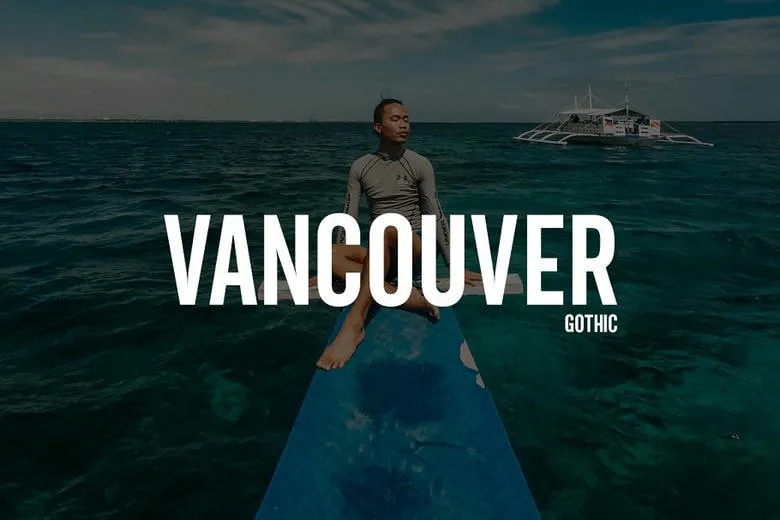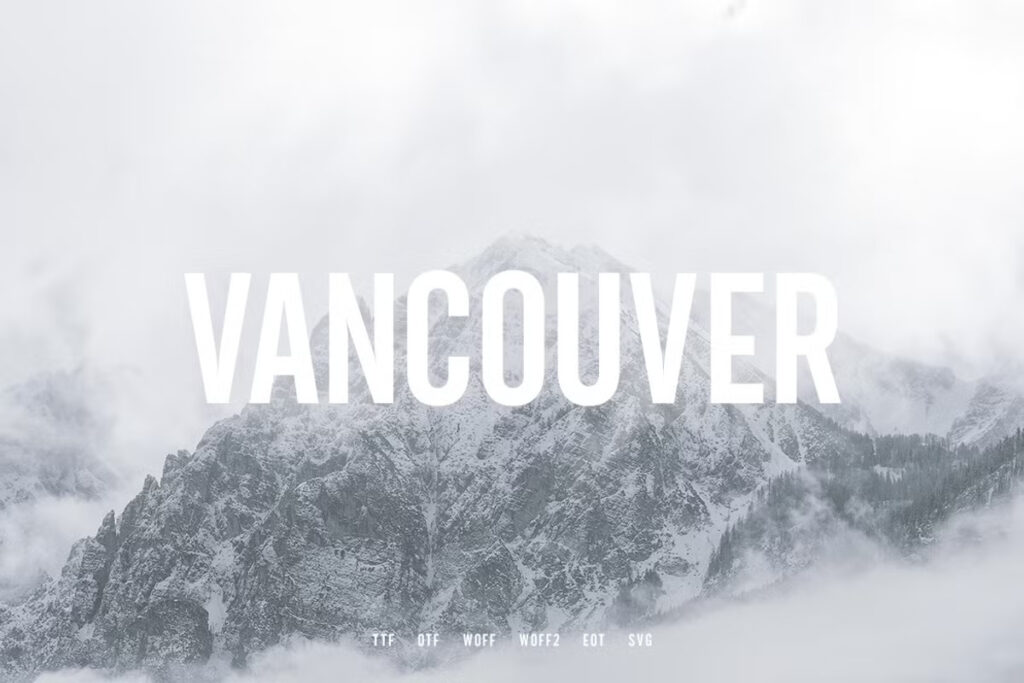
Vancouver Font
Vancouver is a clean and striking sans-serif font. This versatile and professional typeface works perfectly for film posters, headlines, bold titles, subheadings, logos, and many other creative projects. The free version includes a full set of uppercase and lowercase letters, along with a selection of special characters.
Vancouver Sans Serif Font